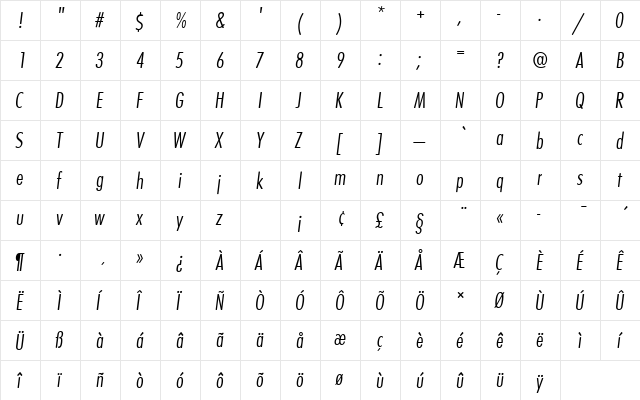
FuturaTLigConOblRo1 Regular Font Preview
FuturaTLigConOblRo1 Regular
FuturaTLigConOblRo1 Regular Font Details
Design Context for FuturaTLigConOblRo1 Typeface
FuturaTLigConOblRo1 has a distinctly futuristic character, with geometric precision and clean angles that feel at home in technology, gaming, and sci-fi contexts.